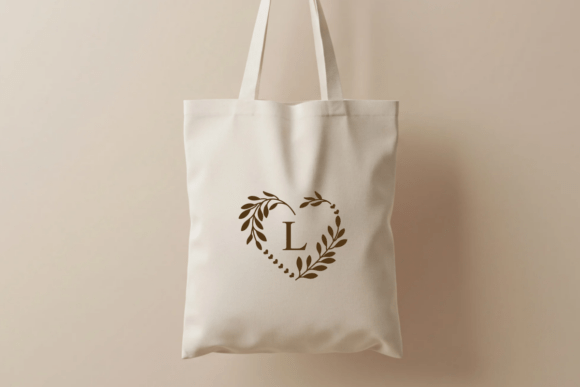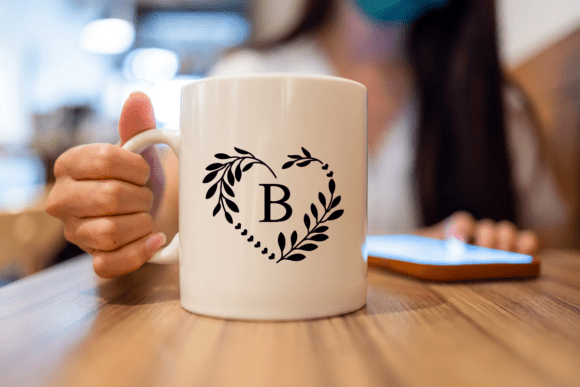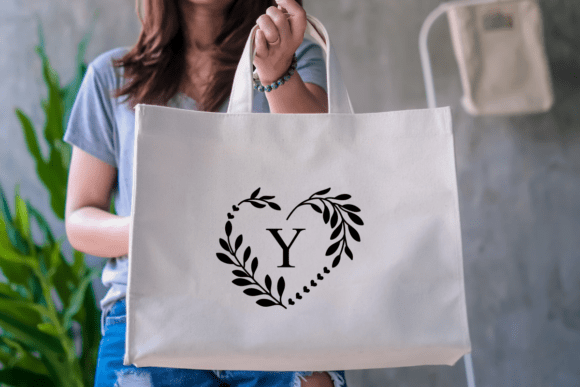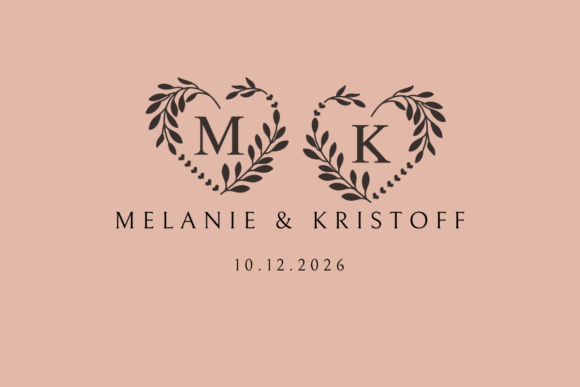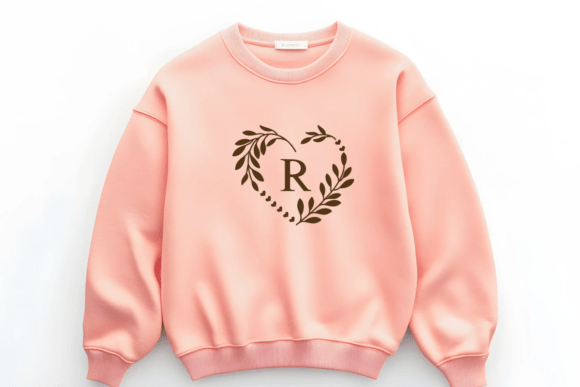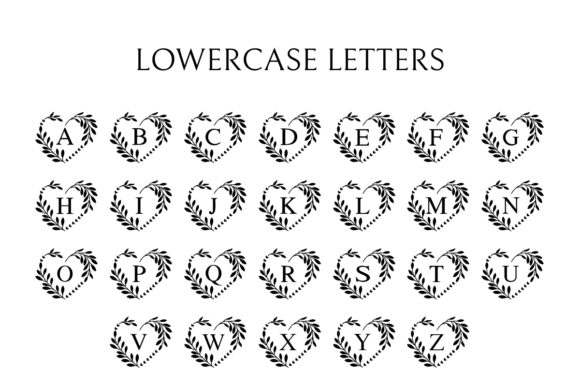
Introduction to Leafy Love Monogram Font
As designers, we’ve all been there – staring at a blank canvas, waiting for the perfect font to bring our creative project to life. For me, it was a wedding invitation for a close friend, and I wanted something truly special to match the occasion. That’s when I stumbled upon the enchanting Leafy Love Monogram Font – a design treasure that combines the elegance of nature with the charm of hand-crafted love.
With its stunning heart-shaped wreath of delicate leaves and tiny hearts, the Leafy Love Monogram Font is a game-changer for any high-quality design project. Whether you’re crafting a brand identity for a floral boutique or designing a bespoke monogram for a bride and groom, this beautiful font adds an instant layer of natural romance and artisanal charm. As a valuable design resource, it’s perfect for creating custom wax seals, personalized gift tags, and digital stationery that exudes warmth and personality.
What sets the Leafy Love Monogram Font apart is its versatility – it pairs exquisitely with classic serif fonts for a traditional look or minimalist sans-serif to let the intricate frame take center stage. And the best part? It’s available for free download, making it an accessible design asset for any creative project.
Key Features of Leafy Love Monogram Font
- Unique, hand-drawn design for a high-quality, creative project
- Features a transparent background for easy customization and composition
- Unique, leafy monogram design that adds a touch of elegance and sophistication to any project
Honest Review: Leafy Love Monogram Font
As a designer, I’m always on the lookout for unique and high-quality design resources to elevate my creative projects. Recently, I stumbled upon the Leafy Love Monogram Font, and I’m excited to share my honest review with you.
- ✨ The font is a beautiful, hand-drawn design that adds a touch of whimsy to any project.
- ✨ The transparent background option allows for seamless integration into various design elements.
- ⚠️ The design is quite intricate, which may make it challenging to use for large-scale text or complex layouts.
Overall, I’m impressed with the Leafy Love Monogram Font’s unique design and versatility. While it may have some limitations, it’s a valuable addition to any designer’s toolkit. If you’re looking for a high-quality, free design resource for your creative project, I’d definitely recommend giving it a try.
For the best results, use the Leafy Love Monogram Font on a transparent background to create a beautiful, high-quality design. Experiment with different font sizes and colors to add depth and interest to your project.
The Leafy Love Monogram Font is perfect for wedding invitations, baby shower invitations, and other special occasion designs. It’s also great for creating custom logos and branding materials.